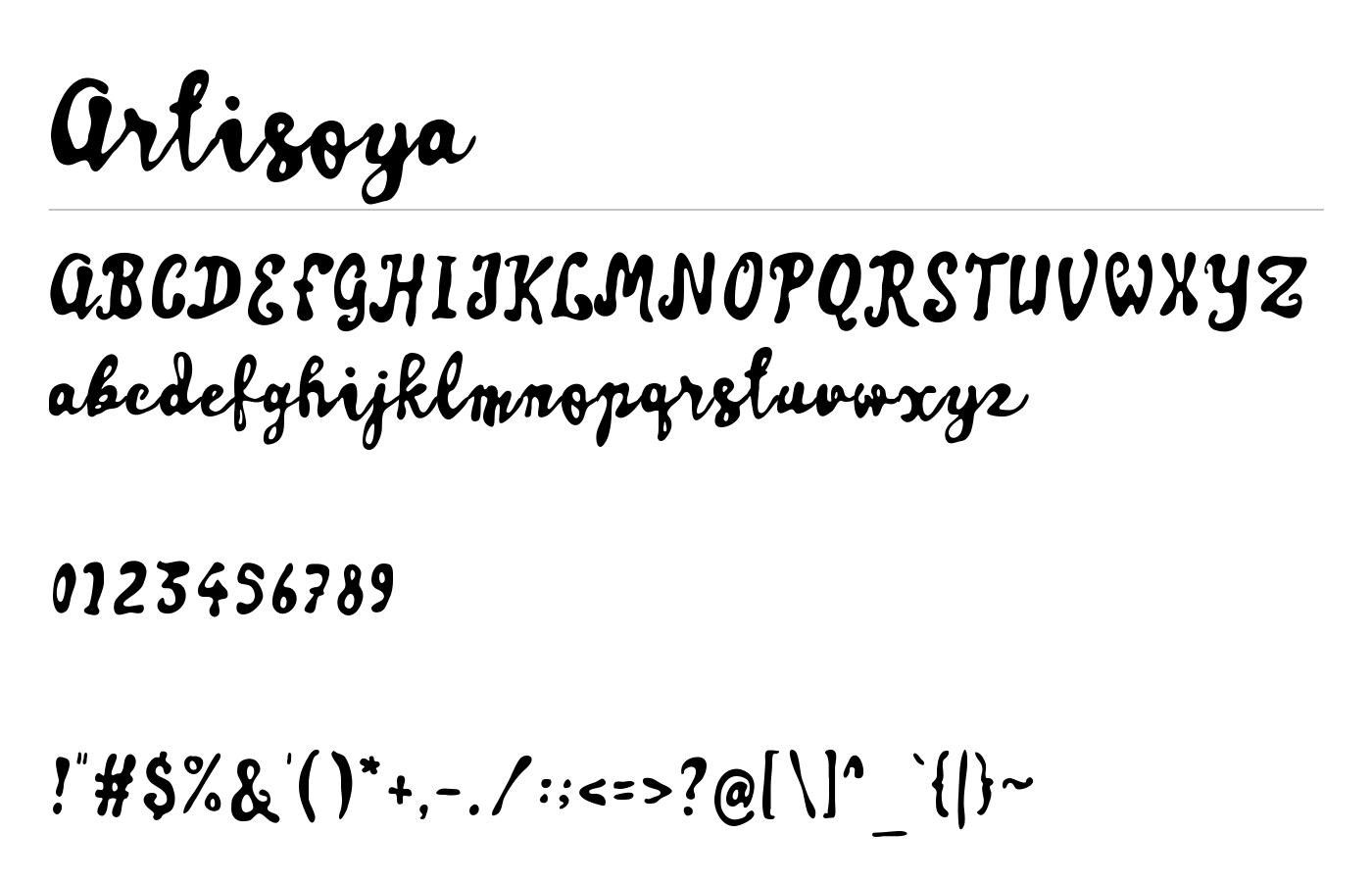
Artisoya is a playful and friendly script font with a bold, brush-like texture that gives it a handcrafted, artistic feel. Its rounded, slightly irregular letterforms and moderate contrast create a casual yet distinctive style, perfect for creative projects, branding, and headlines that aim to convey warmth and personality. This font works well in invitations, logos, and packaging where a lively and approachable look is desired.
Artisoya Font
About Artisoya Font
| Font family | Artisoya Font |
| Designer | Darwinoo |